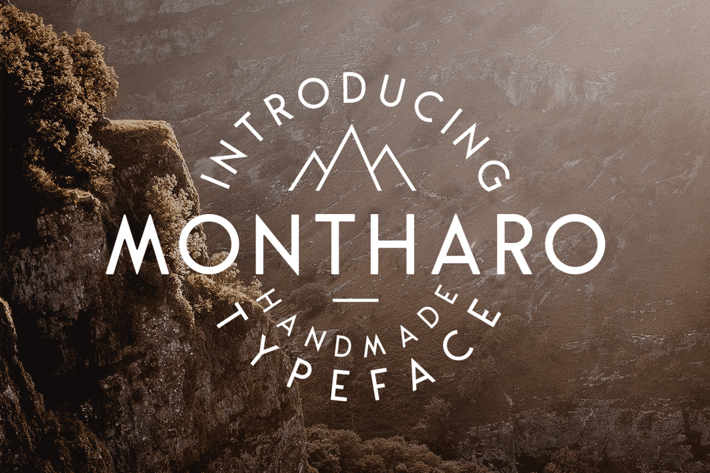
Montharo Typeface + Extras
Introducing, Montharo Typeface. A font family which has 5 font version. The character of the rough edge, inky, round and stamp verison . Everything version is suitable for vintage & retro feel.